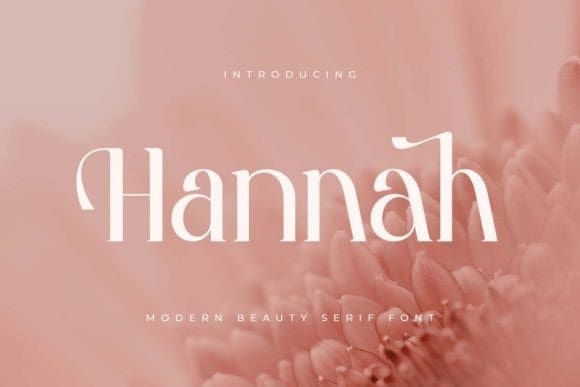
Hannah Font
Hannah Font is a stylish serif font that seamlessly marries classic elegance with modern flair. Its meticulously crafted letterforms exude sophistication, bringing a touch of refinement to your designs. Ideal for projects that demand a timeless yet contemporary aesthetic, this font adds a distinctive charm to your typographic expressions.